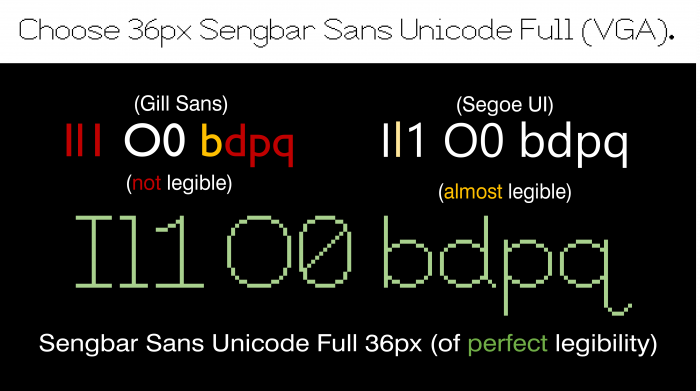
• Sengbar Sans Unicode Mini VGA-style (36px) is a customed half-unicoded pixel sans-serif which blends the original Cadmus Legible Unicode (48px) and Sengbar Delta Compressed Pixel (my compressed bitmap pixel counterpart) together, but much like both Cadmus Legible Unicode and Sengbar Cadmus Print Pixel, each of these assigned glyphs (e.g.: I, l, 1, O, 0, b, d, p, q) has distinguishable letter forms, some glyphs may include serifs, a zero-stroke, and its tails/end strokes (in the UK, they call this "exit strokes"), pretty much like what Inclusive Sans and/or Atkinson Hyperlegible has.
This is the Mini version (in Unicode), only with just limited glyphs (Latin-1 Supplement, Latin Extended-A, and Latin Extended-B), excluding IPA/Phonetic Extensions and Cyrillic (1)/Supplements (2), because the glyphs are in full or halfway. If you wish to see the Full version of said Mini version, here is the title link:
Sengbar Sans Unicode Full VGA-style (36px)
This font is in the style of the VGA, and is also useful for AWTL/AOSTL and OSMK usage.
This font is also designed for accessibility, legibility, and readability, rendering this font "more accessible" and "perfectly distinctive" unlike its competitors Gill Sans MT, Arial, Helvetica and Segoe UI (although this font is its default, it can almost be legible).
I've just noticed your Full version of your font looks amazing! Your font looks crisp and clean! Good one.
Well, your glyphs may be limited in the Mini version, but the Full version looks spot on!
Highly recommend.
In the Spacing Modifier Letters chart, not only did you try to make limited glyphs, but you added three separate glyphs (02C8, 02CC, 02D0) useful for IPA! This is very useful for pronunciation!
It's the same as before, but I added some glyphs (some missing, but most in full) in the Mini version. If you click the title link there, you will notice the full version has all of the glyphs (Latin-1 Supplement, Latin Extended-A, Latin Extended-B, and also Latin Extended Additional) in its field.